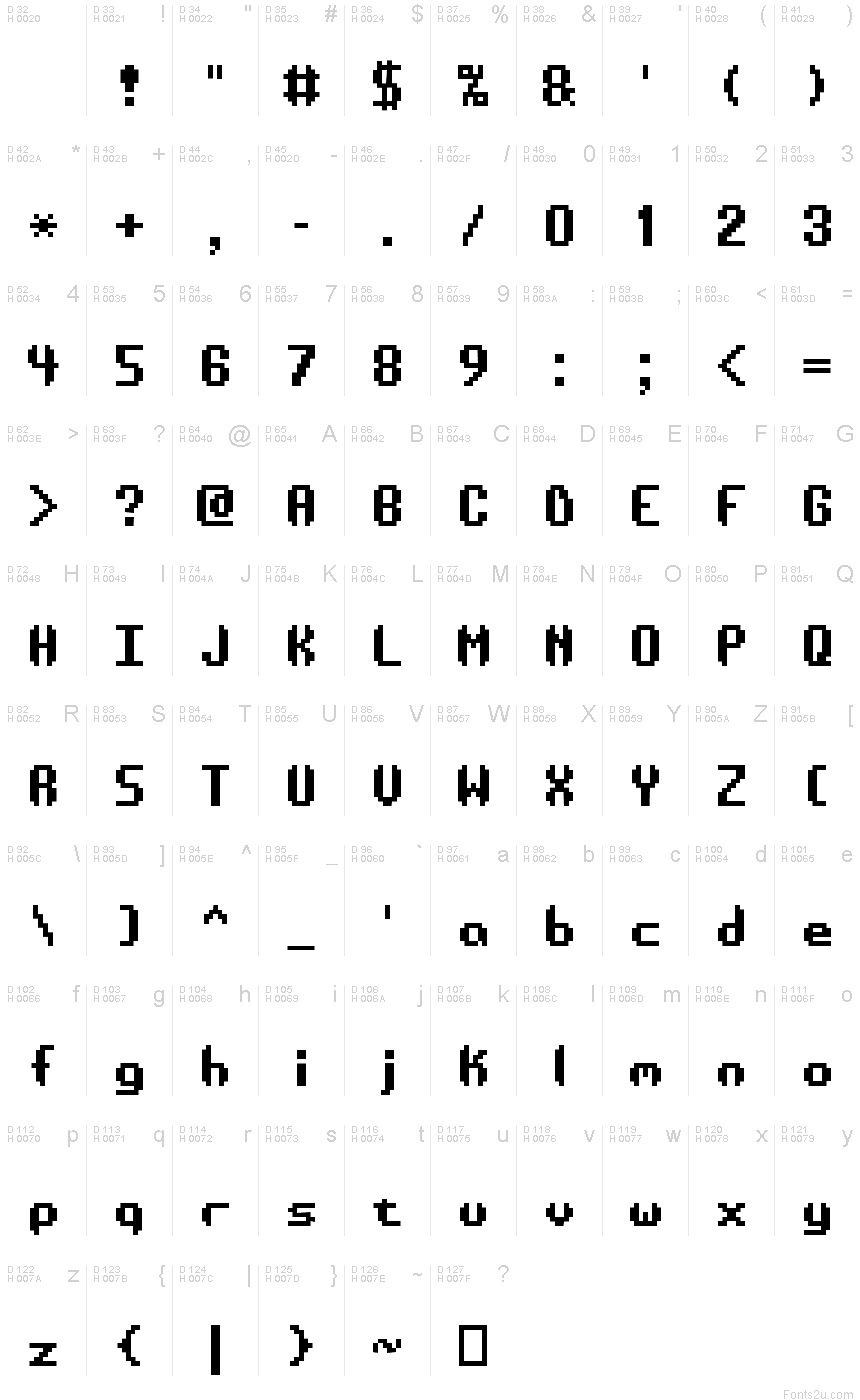
Æ Systematic TT BRK
Æ Systematic TT BRK font by ÆNIGMA FONTS is a free pixel bitmap typeface that feels ripped straight from a monochrome terminal screen. Its tight, grid-locked letters stack into clean columns, giving text that crisp, code-like texture you’d expect from old-school DOS interfaces and early game menus. The consistent stroke weight and sharp corners keep everything legible even at tiny sizes, making it read like a precise stream of data rather than a decorative gimmick.
Using Æ Systematic TT BRK, you can instantly give game HUDs, retro UIs, sci‑fi overlays, coding‑themed posters, album art, pixel art titles, and techy social graphics a believable 8‑bit backbone. This free font shines when set in all caps and kept small, like status bars or on-screen prompts; pair it with a smooth geometric sans for body text to contrast its crunchy, low-res texture.